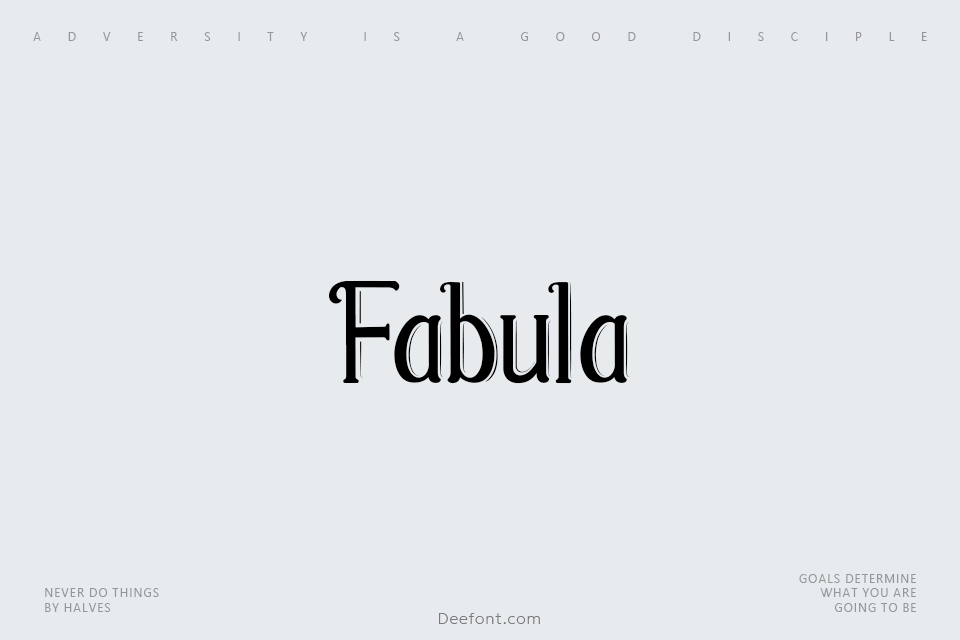
Fabula Font
Fabula is a captivating display typeface designed for story titles, particularly fantasy narratives and romantic novels. With long ascenders and descenders, rounded terminals, and informal yet sophisticated letterforms, the font features a distinctive rounded ‘e’ and clear character differentiation. Inspired by classic Grimm fairy tales and Disney illustrations, Fabula brings magical charm to children’s literature and creative typography projects. Its decorative style and playful elements make it ideal for headlines, book covers, posters, and any design requiring fantasy-themed elegance.